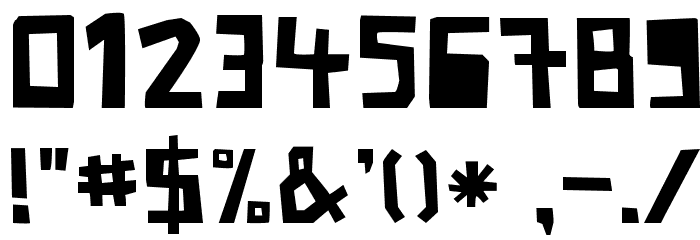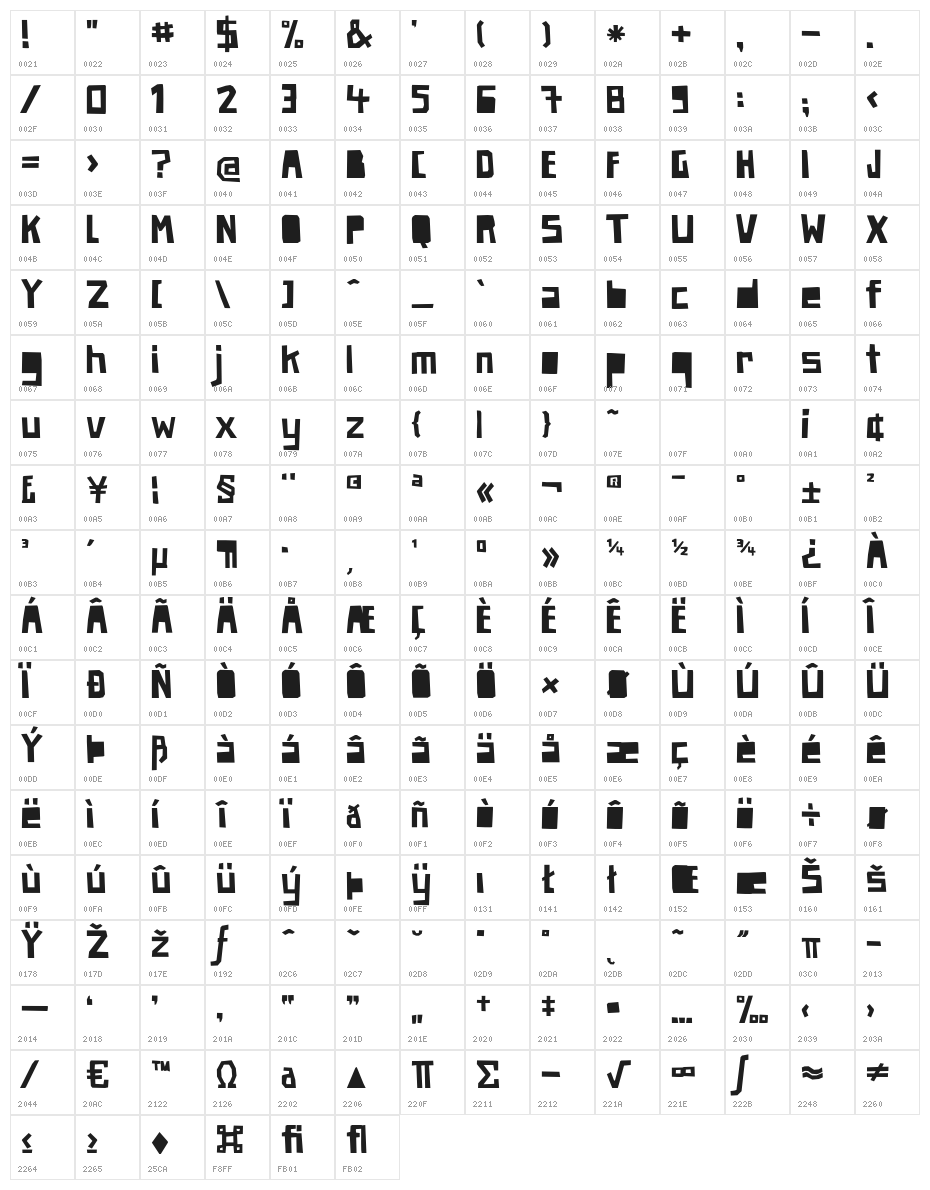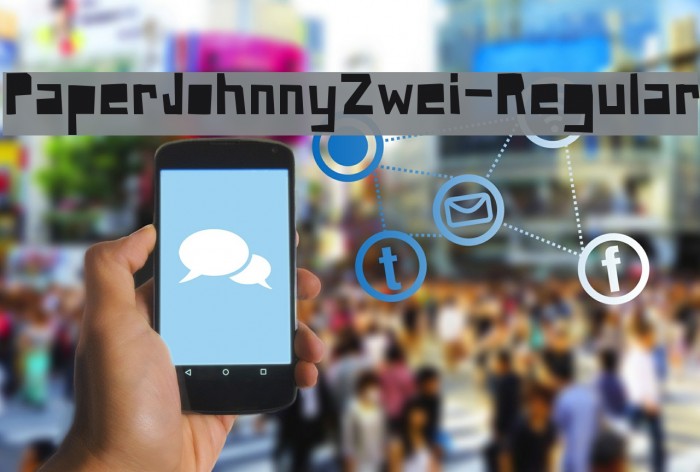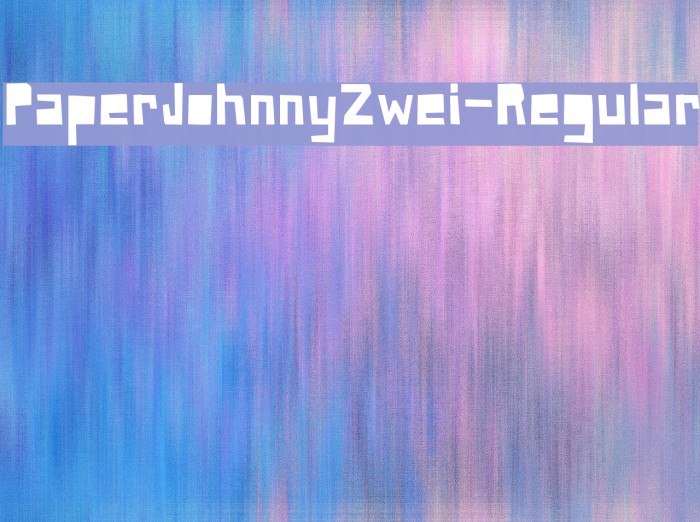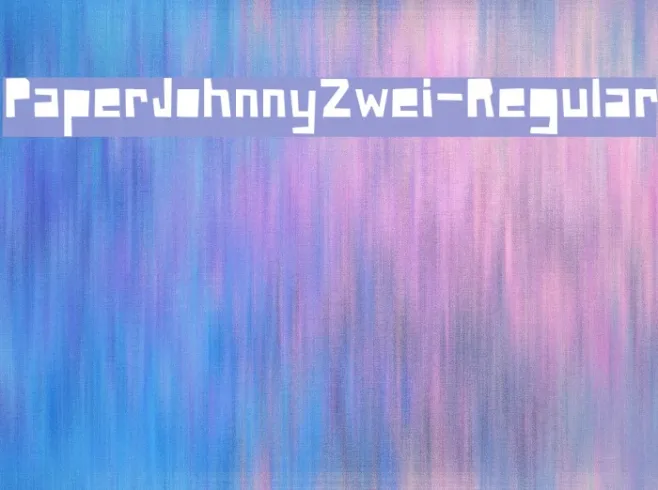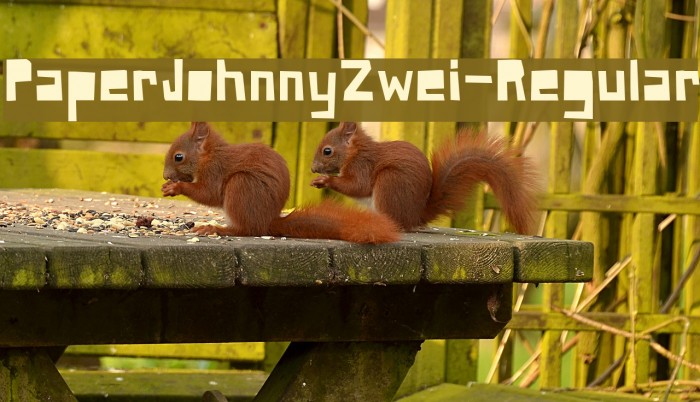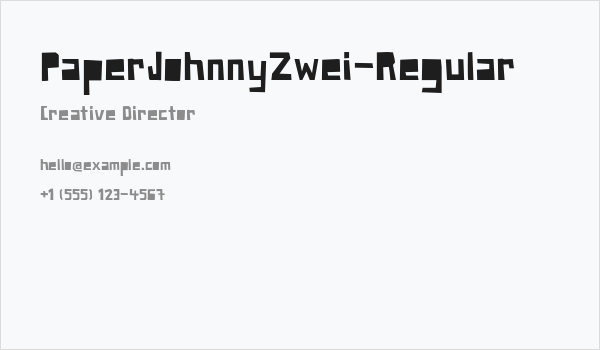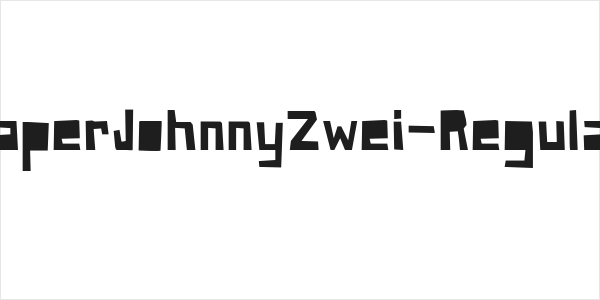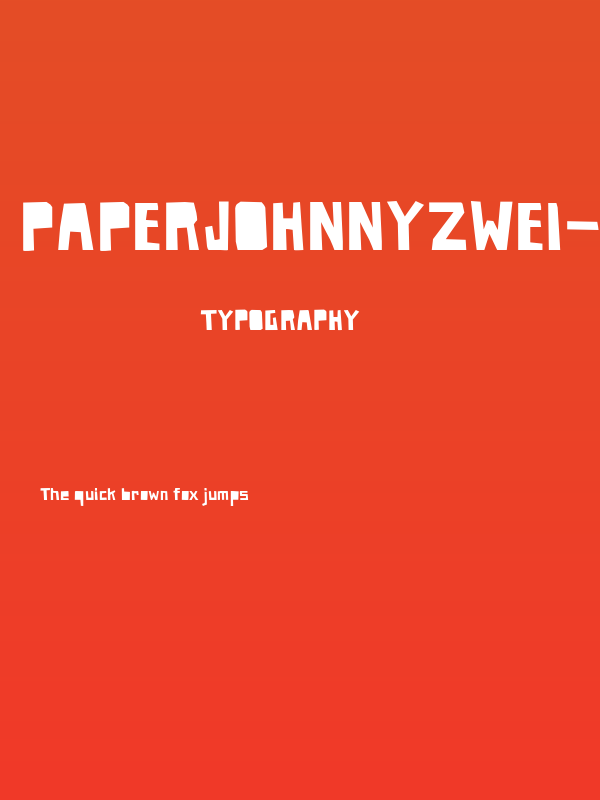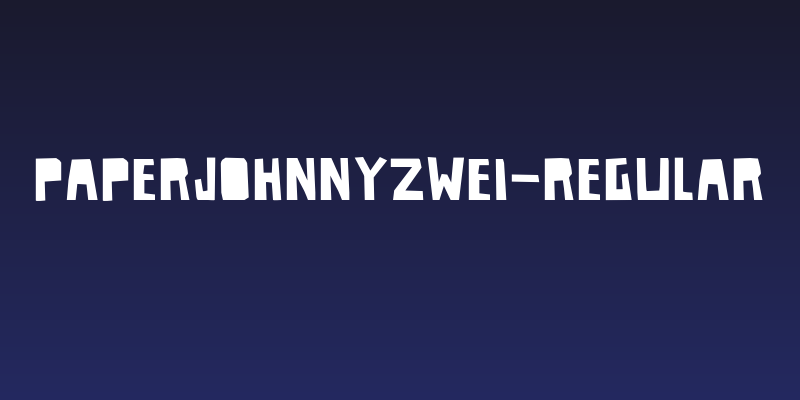
PaperJohnnyZwei-Regular Font
PaperJohnnyZwei-Regular Description
This font features a bold and geometric design with a distinctly angular and blocky appearance. The characters are crafted with sharp edges and irregular shapes, giving it a unique and edgy look. The uppercase and lowercase letters maintain a consistent style, with a playful yet structured form. Numbers and special characters follow the same design principles, ensuring uniformity across all glyphs. The font's boldness and distinctive style make it stand out, ideal for attention-grabbing designs.
| Proposed Projects | Perfect for posters, album covers, branding projects, and any design requiring a bold, modern statement. |